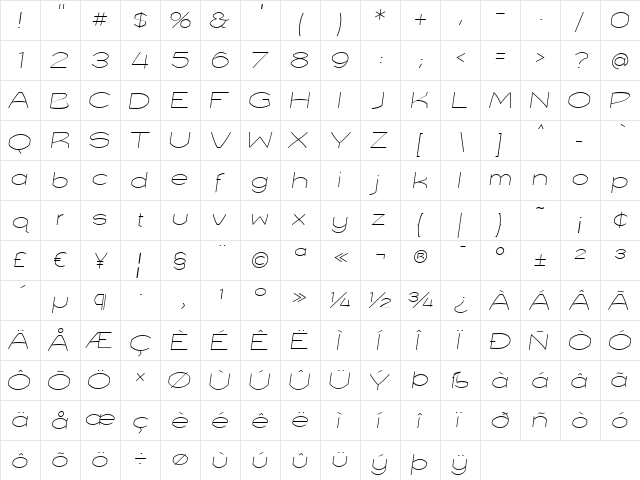
Truss UltraLight Oblique
| Foundry | Neil Summerour and Positype https://www.positype.com] |
| Designer | Neil Summerour |
Design Context for Truss Typeface
Truss offers clean, dependable letterforms without strong stylistic allegiance, making it a practical choice for designers who need flexibility. The slanted form adds forward momentum and visual energy. The delicate stroke weight brings airiness and refinement to layouts.
Pro Tip: Try Truss for annotation and caption copy alongside an upright companion — the contrast in angle creates a dynamic but ordered typographic system.